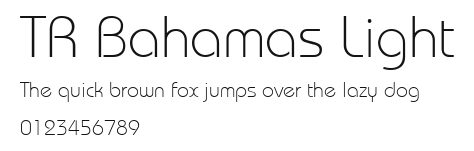
• Font Name: TR Bahamas Light
• Font Style: Plain
• Full Font Name: TR Bahamas Light Plain
About TR Bahamas Light.ttf
TR Bahamas Light.ttf is a modern, elegant sans-serif font designed for ultimate readability and visual harmony. Perfect for branding, headlines, web design, and print materials.